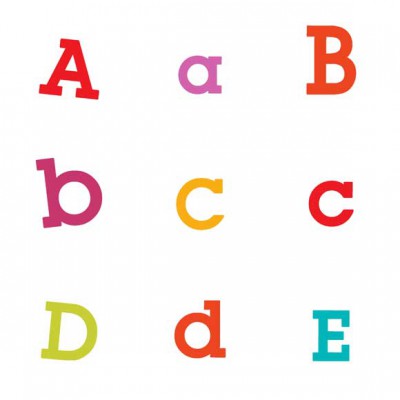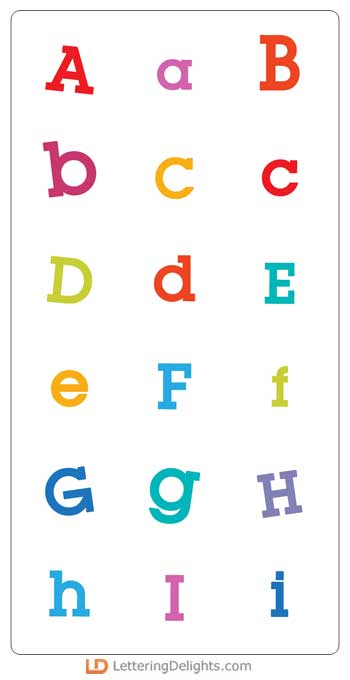
Inventive - AL
This full-color font is made from a bouncy slab serif in a color palette that matches the kawaii-a-bunga set. We've included a .otf svg font that is full color that can be used on certain programs. OpenType full-color (SVG) fonts are installed like any normal .otf font is installed. This usually happens via FontBook for Mac users or via your preferred font manager or Control Panel in Windows. Please note color fonts will show as black in non-compatible programs. They often show as black when choosing the font in the preview window in programs that support color fonts. You will know if your program can support color fonts when you type on the document and see them in color. Adobe products, Silhouette Studio, Quark, and Inkscape, amongst others, support full-color SVG fonts at this time.